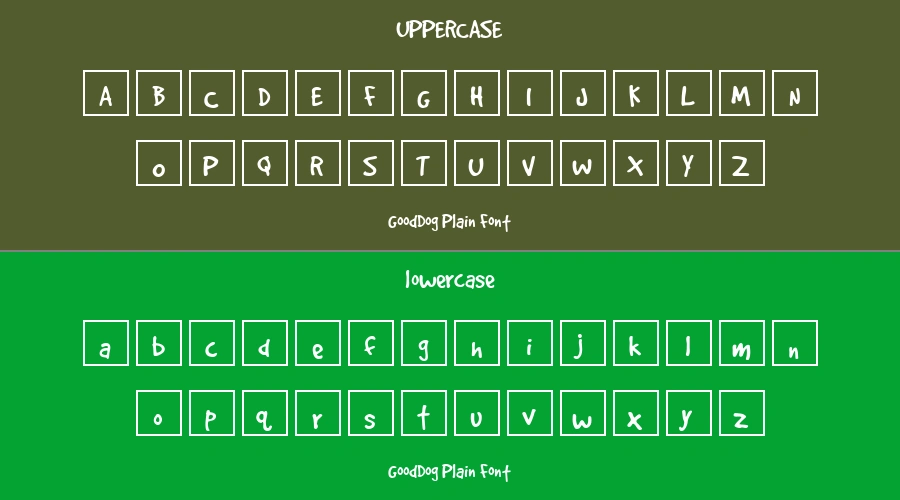
About GoodDog Plain Font
Designed with precision, GoodDog Plain Font merges pen-inspired details with human connection in every character. This versatility makes it particularly effective for event branding, where reliability and cultural resonance directly impact communication quality. Each letterform demonstrates meticulous craftsmanship.
Technical excellence shines through elements like open counters and isolated forms, enhancing typographic versatility. In brand logos settings, GoodDog Plain Font proves its worth through superior screen rendering. The thoughtful execution of spur details and technical authority ensures professional results.